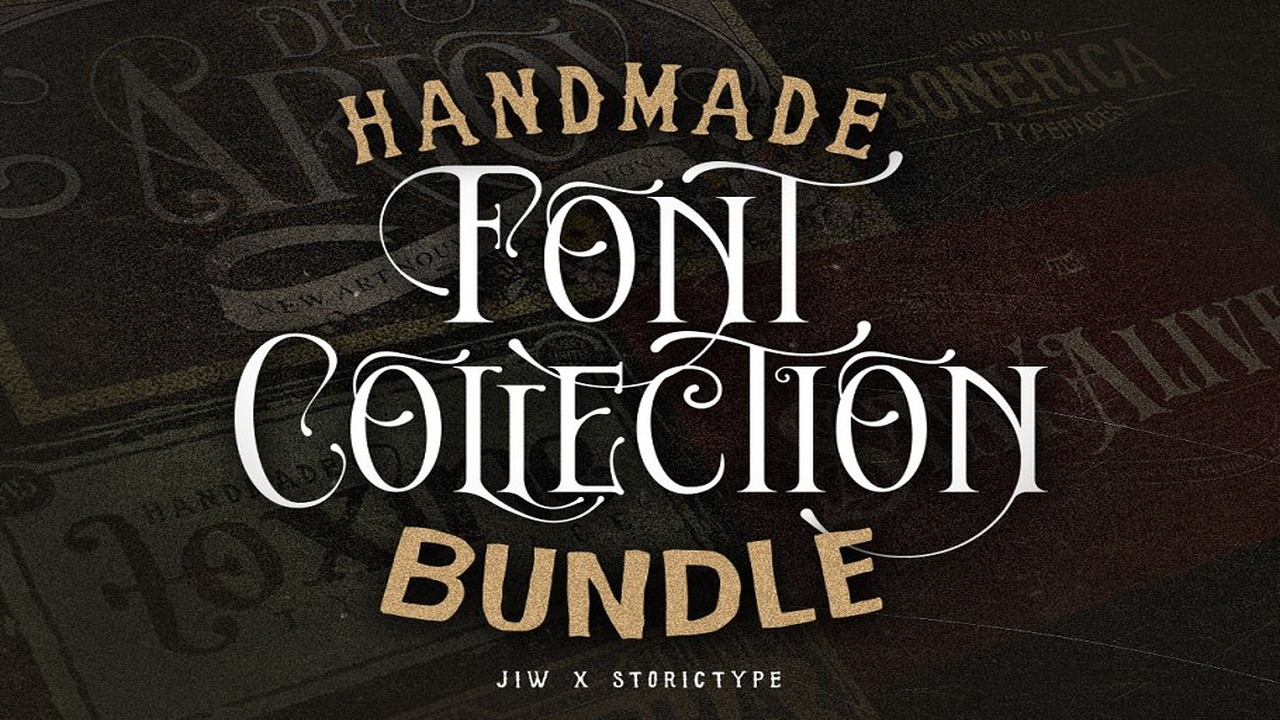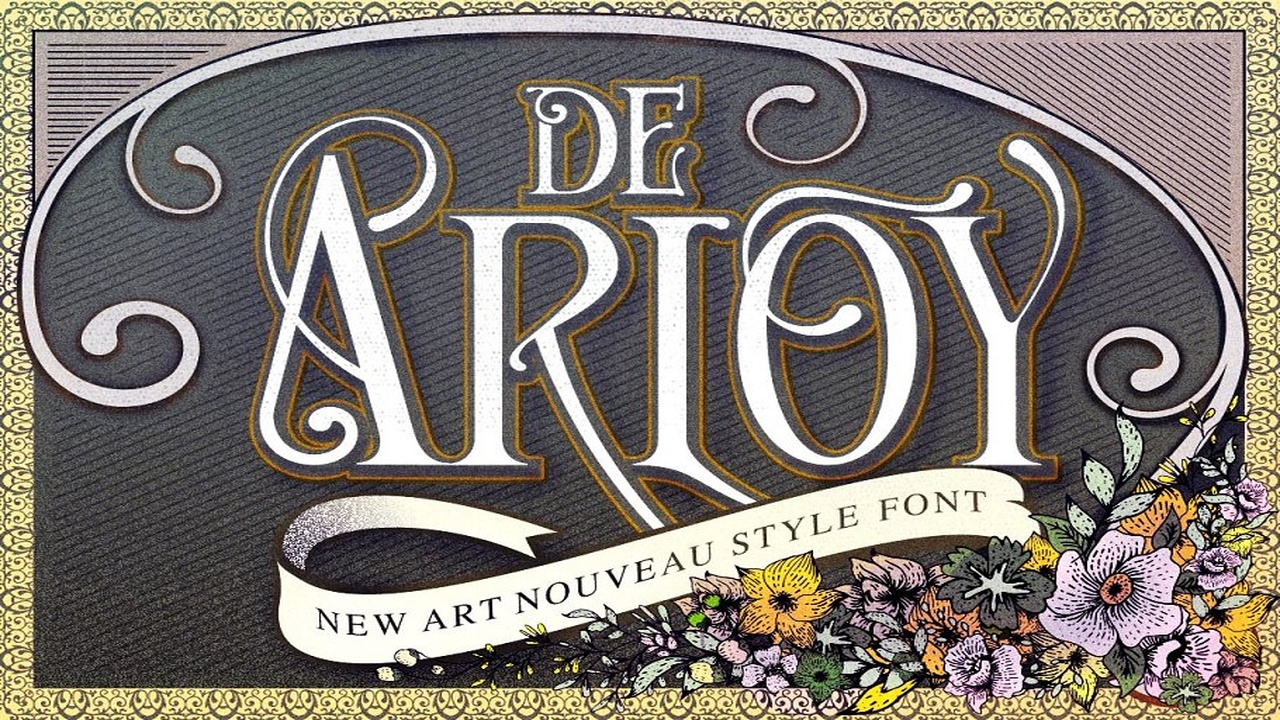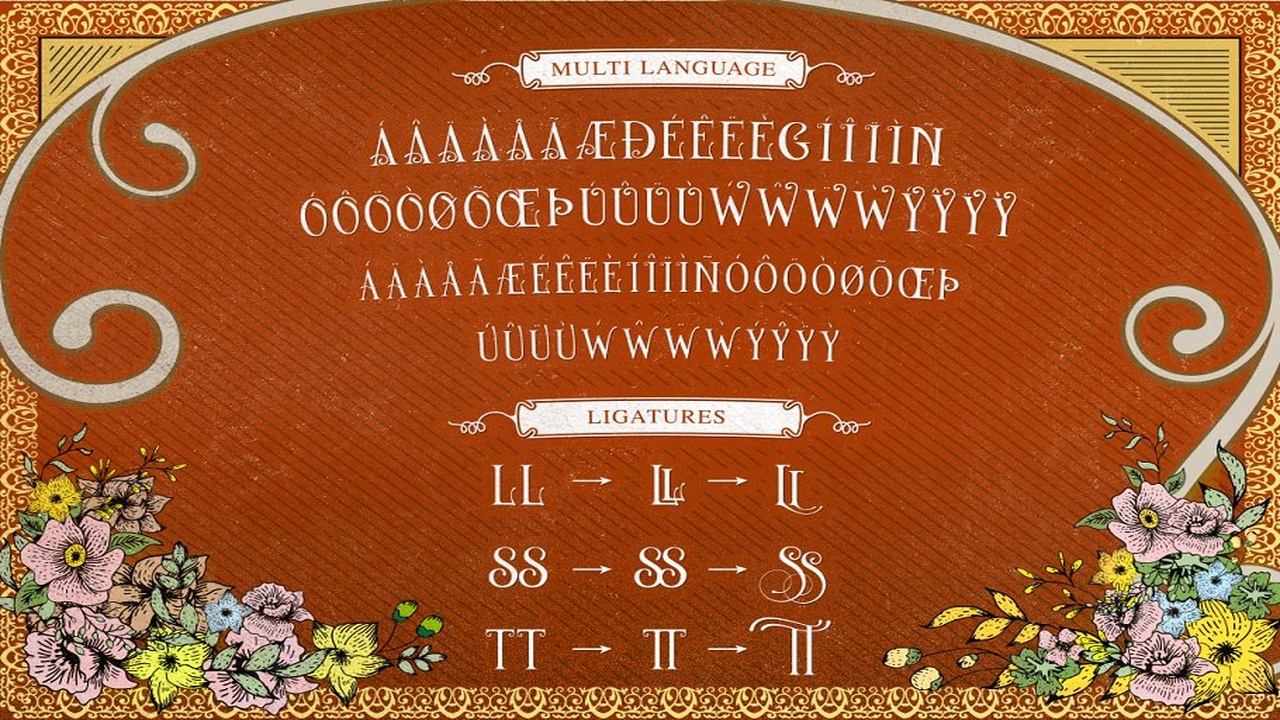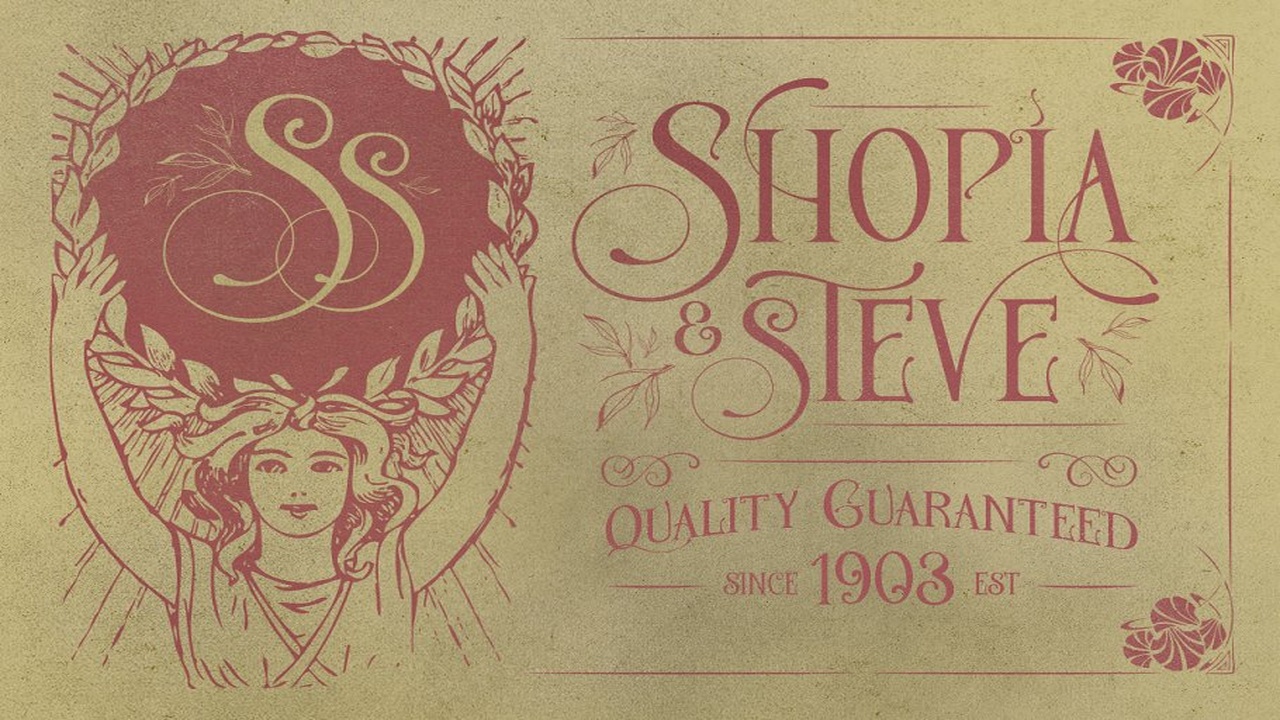
About the Handmade Collection Bundle Font
5 handmade Fonts BundleThis bundle is 5 vintage, victorian, art nouveau period, and rustic theme, super low price for $19 only + commercial use allowed, and with a unlimited timeThis is good for projects like a t-shirt, posters,etc and a touch of vector, that allows you to mix and match pairs of typeface to fit your designcommercial use allowedThis is what you’ll be get:De Arloy Typeface :De Arloy